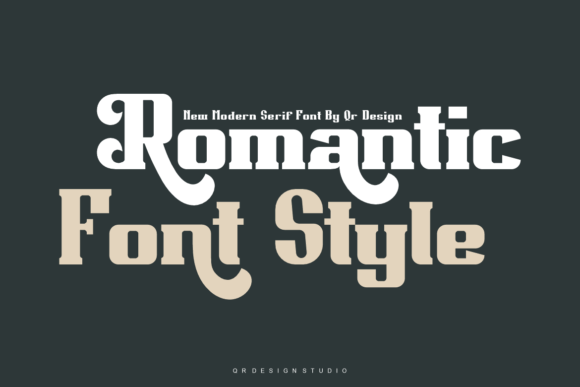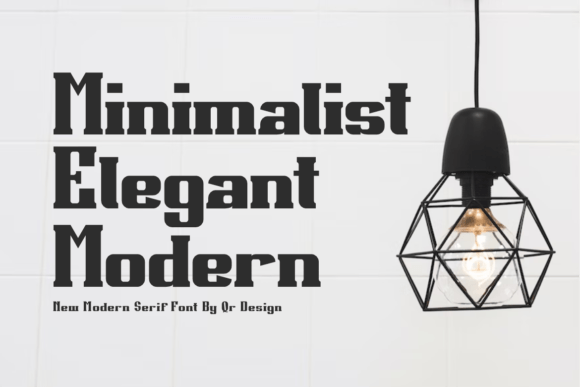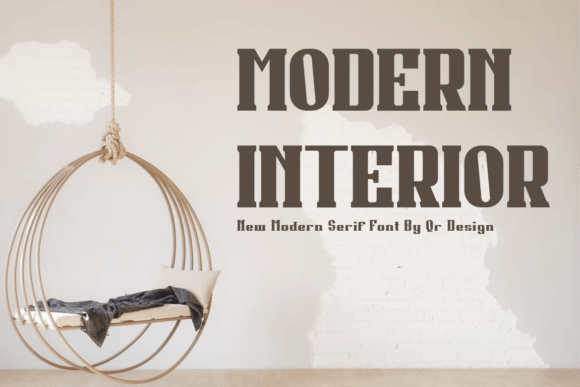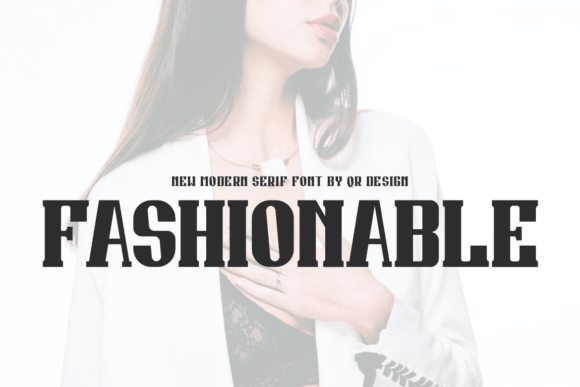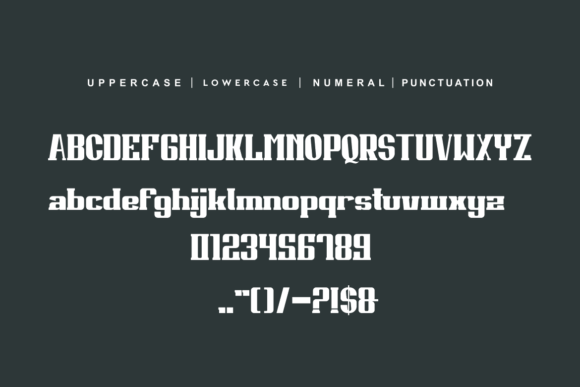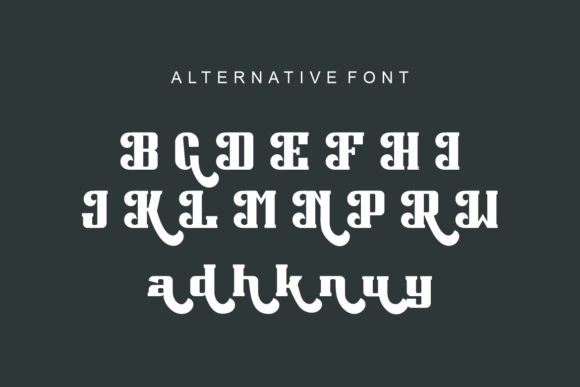
Introduction to Romance Classic Font
Have you ever been stuck in the midst of a creative project, desperately searching for the perfect font to give it that extra oomph? I’m sure we’ve all been there – the blank screen, the endless scrolling through design resources, the frustration of not finding that one elusive font that makes our vision come alive. But what if I told you that there’s a font that’s not only stunning but also incredibly versatile? Enter the Romance Classic Font, a bold and authentic serif font that’s sure to elevate any design project.
Key Features of Romance Classic Font
- High-quality design resource ideal for creative projects and romantic themes.
- Features a transparent background, allowing for effortless customization and blending with various backgrounds.
- Designed with a classic touch, perfect for vintage-inspired and elegant designs.
- Includes a range of characters, including uppercase and lowercase letters, numbers, and special symbols.
Honest Review: Romance Classic Font
I recently stumbled upon the Romance Classic Font while searching for a free download to enhance a creative project. The font’s elegant design caught my attention, and I was excited to put it to the test.
- High-quality design: The Romance Classic Font boasts beautiful, intricate details that make it perfect for romantic-themed projects.
- Transparent background: This feature allows for easy customization and layering, making it a great design resource for creative projects.
- Limited language support: Unfortunately, the Romance Classic Font is only available in a limited number of languages, which may be a drawback for some designers.
- No bold or italic variations: While the font’s elegance is undeniable, the lack of bold and italic variations may limit its versatility in certain design contexts.
Overall, I’m impressed with the Romance Classic Font’s design and versatility. While it may have some limitations, it’s a great addition to any designer’s toolkit, especially for romantic-themed projects. With a little creativity, you can achieve stunning results with this high-quality font.
Use the Romance Classic Font for wedding invitations, love quotes, romantic poetry, or any other creative project that requires a touch of romance and elegance.